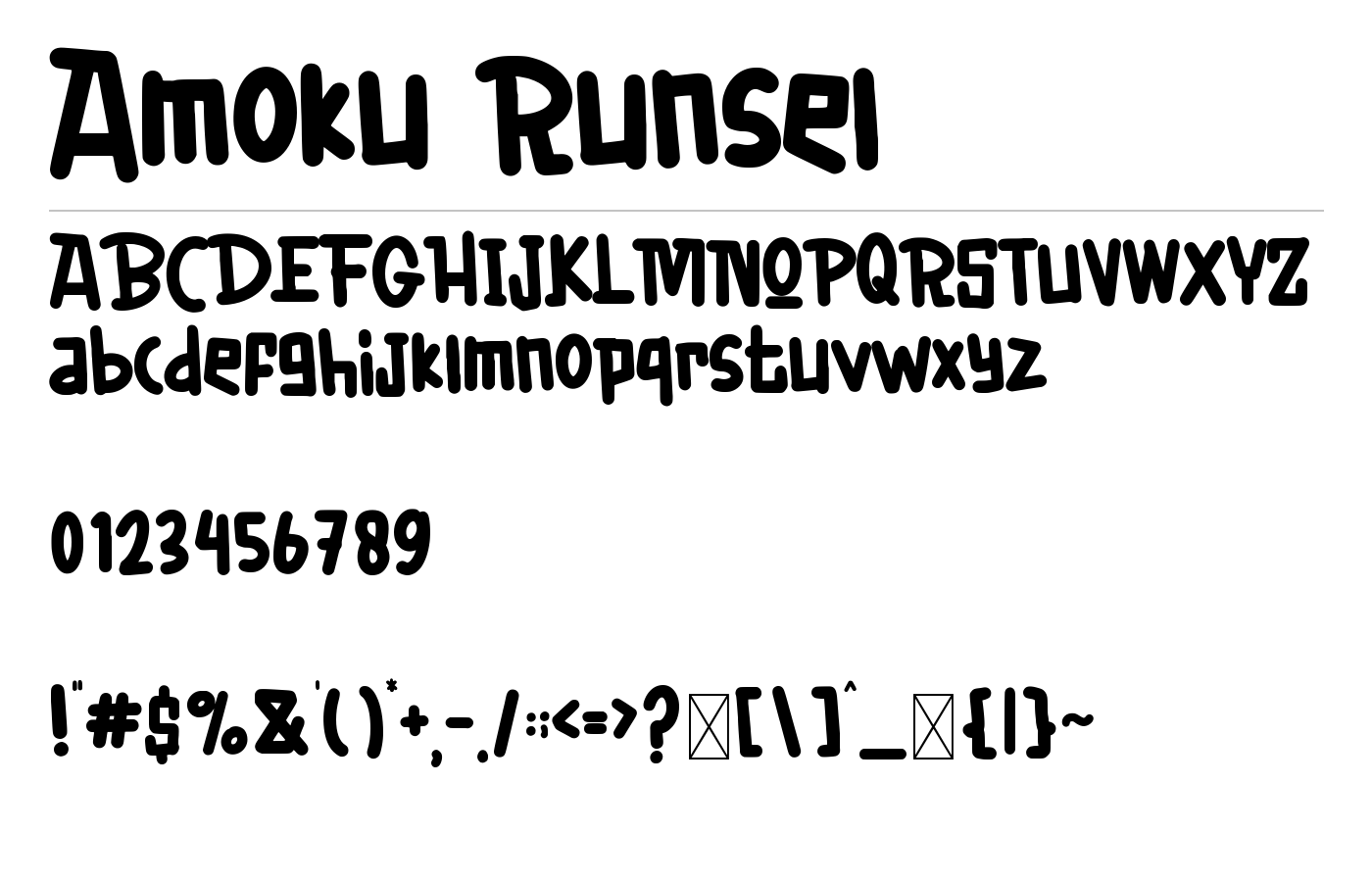
Amoku Runsel is a playful, hand-drawn sans serif font with a bold weight and slightly condensed width, offering a casual, friendly vibe. Its irregular letter shapes and solid strokes give it a unique, approachable personality that works well for informal branding, children's designs, and creative projects needing a touch of whimsy. This font shines in headlines, logos, and packaging where a fun, engaging style can capture attention.
Amoku Runsel Font
About Amoku Runsel Font
| Designer | M Arif Dwi Prasetyo & Eko Nurcahyo |